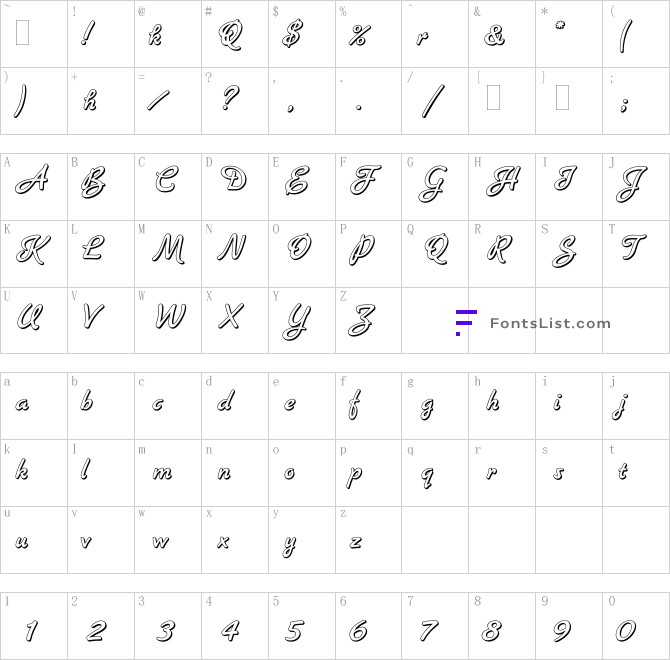
- Font Name:Banner LET
Banner-LET-Plain-10.ttf is a very beautiful artistic font, Banner-LET-Plain-10.ttf is widely used in the design and printing of various books and pictures,Banner-LET-Plain-10.ttf has a strong visual impact,Banner-LET-Plain-10.ttf is a commonly used font in newspapers, magazines and books, and is used in posters, e-commerce Poster design, store design, logo design, font design and other fields.Banner-LET-Plain-10.